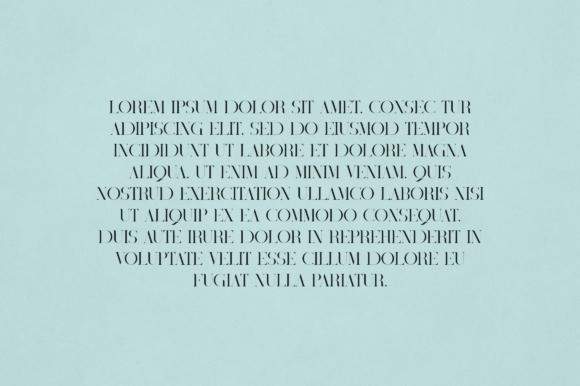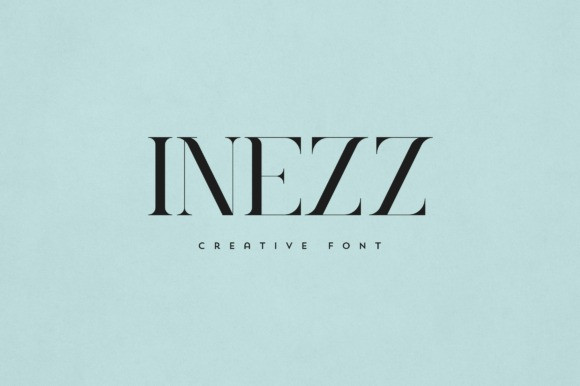
Inezz Font
Inezz Font is an elegant and versatile serif font that will make your typography truly unique! It will enchant every logo, branding, headline, or plain text!